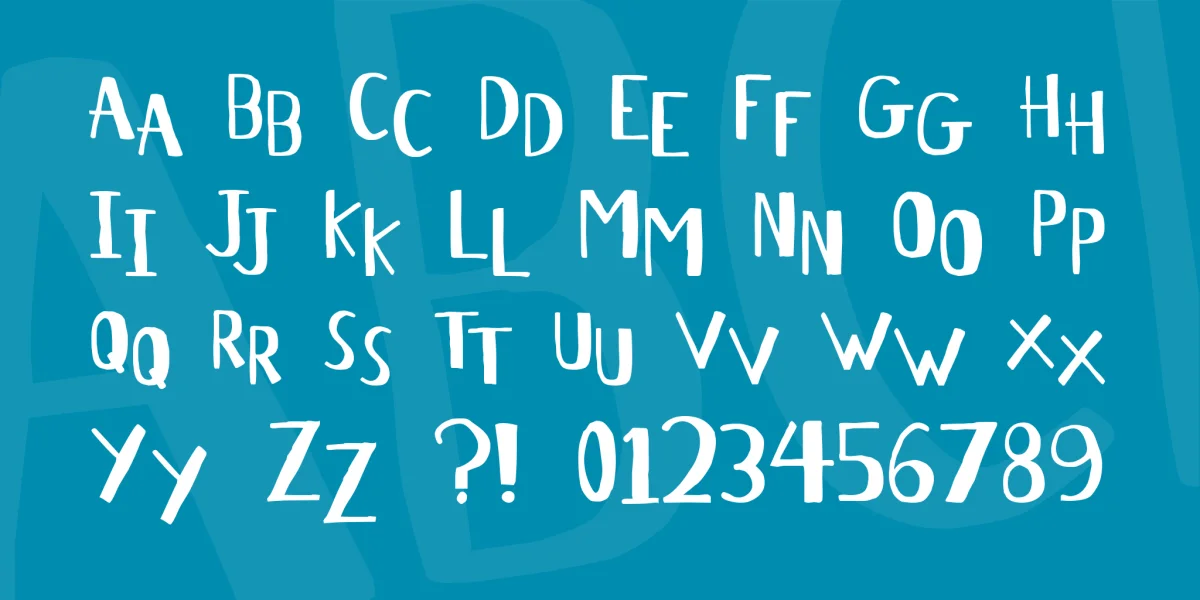
(Lower/Caps [see below], Numbers, some Punctuation/Special) is my Top-hat style Headline font (thus the 'H'). To get the font to look staggered, as at left, you alternate uppercase and lowercase: AnTeLoPe H. You can also use straight caps or lowercase to get a more even look. I may eventually do a lowercase set and make a regular 'Antelope'. Hand hinted!